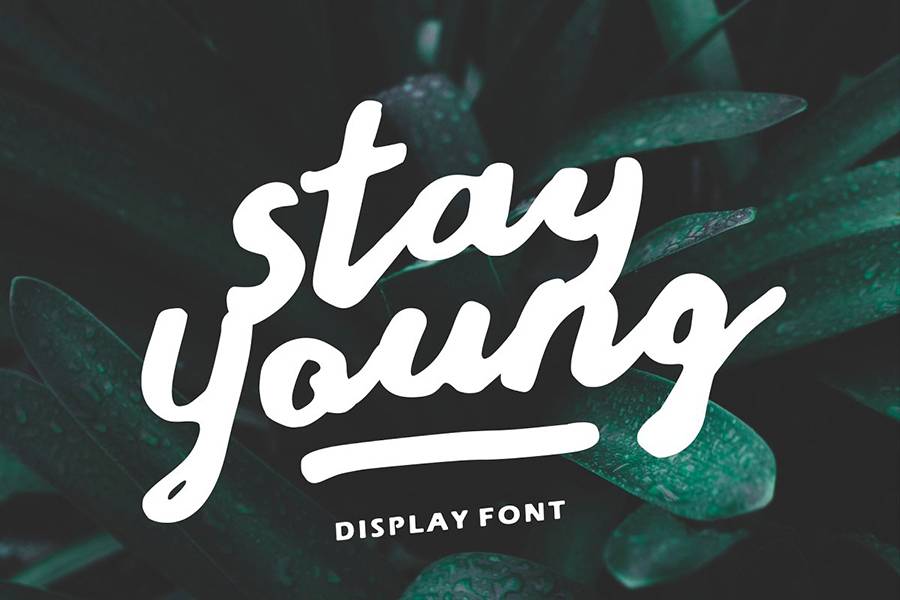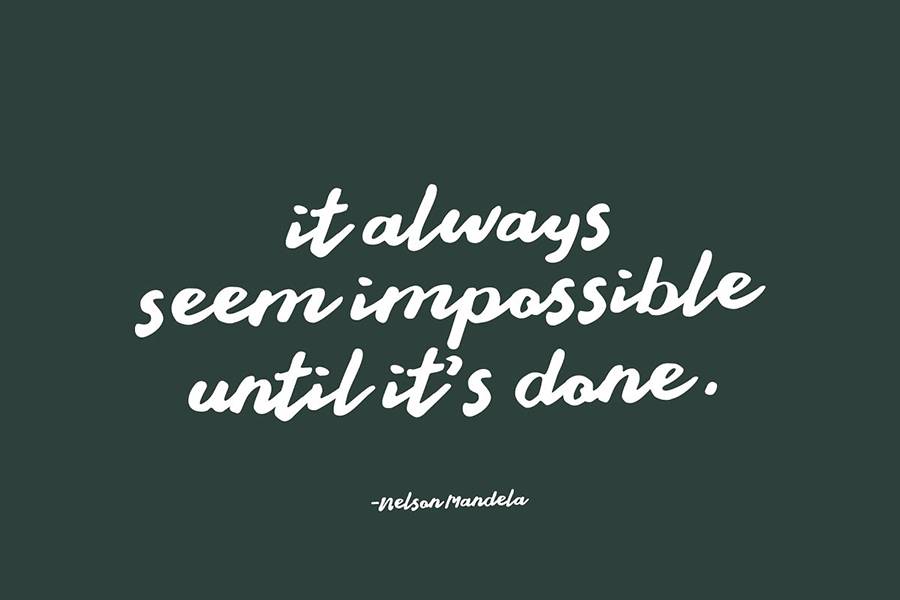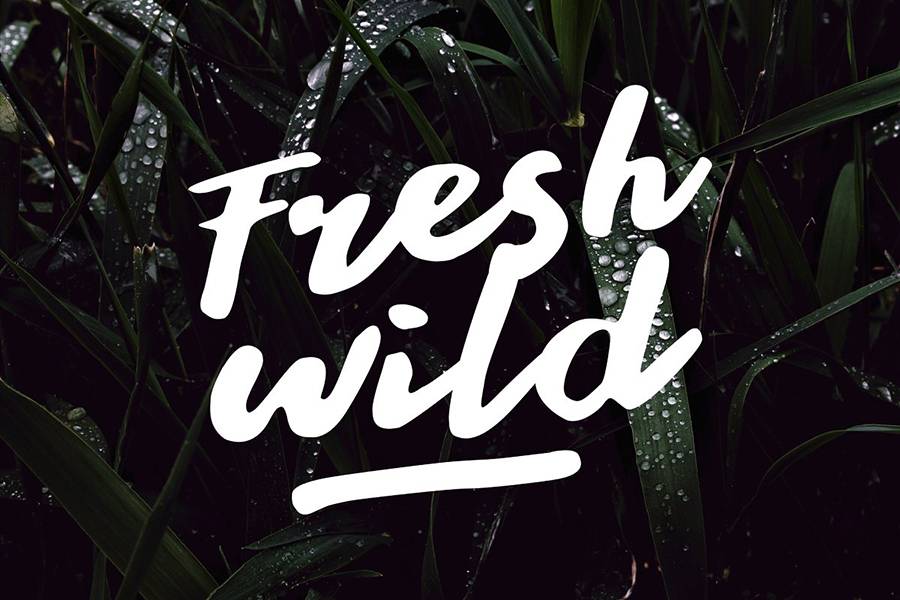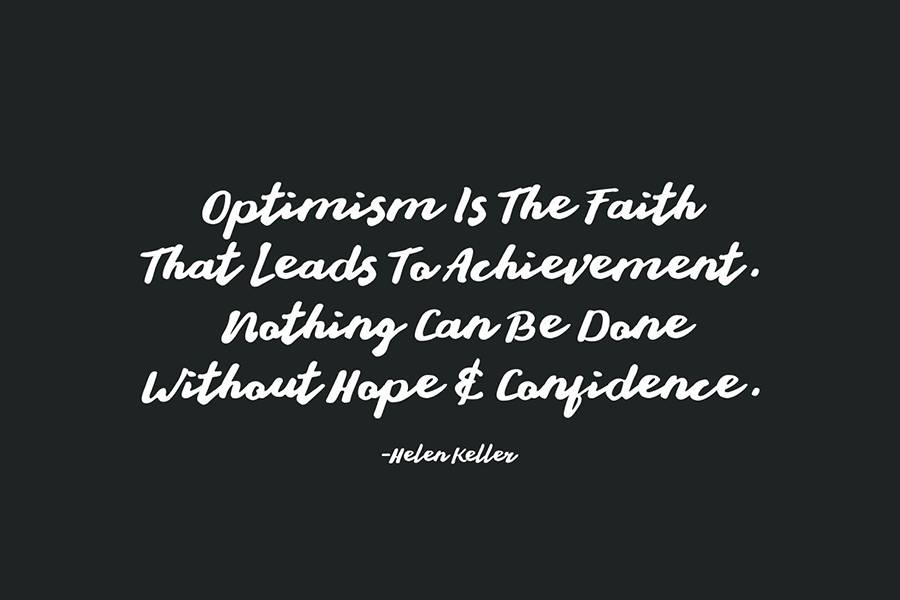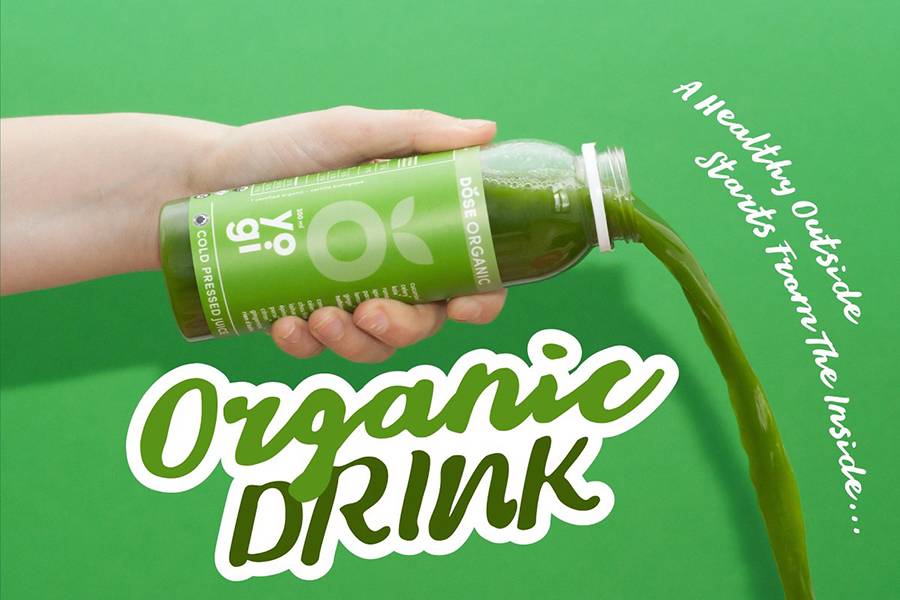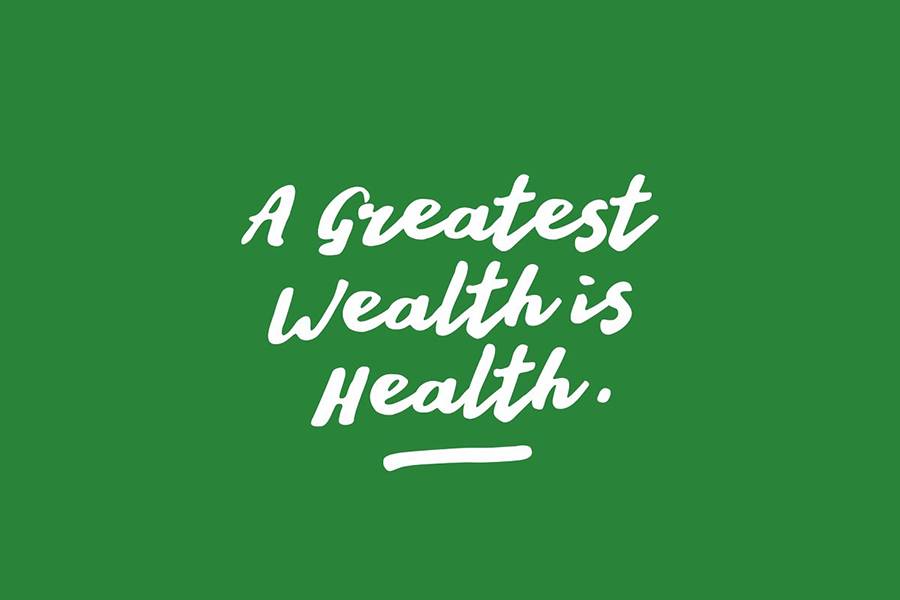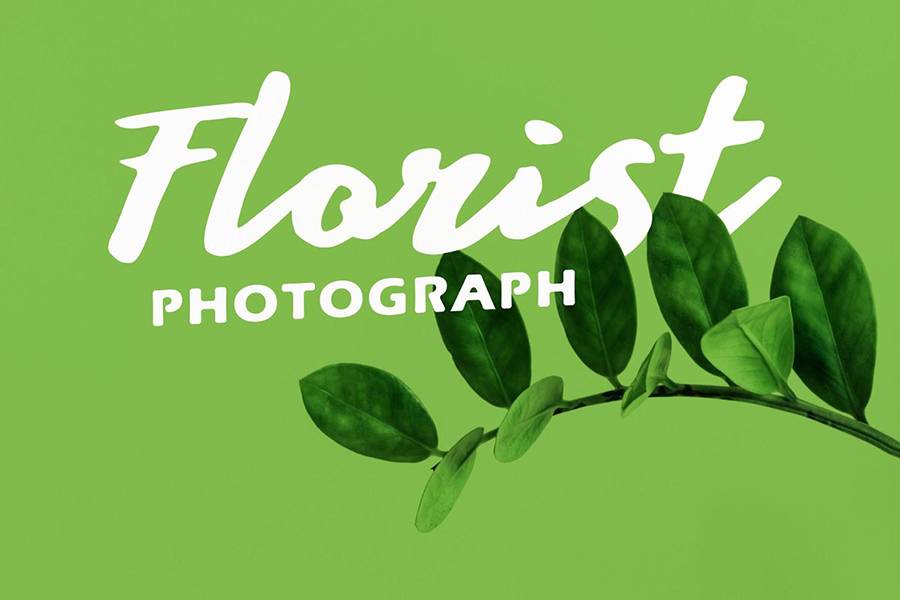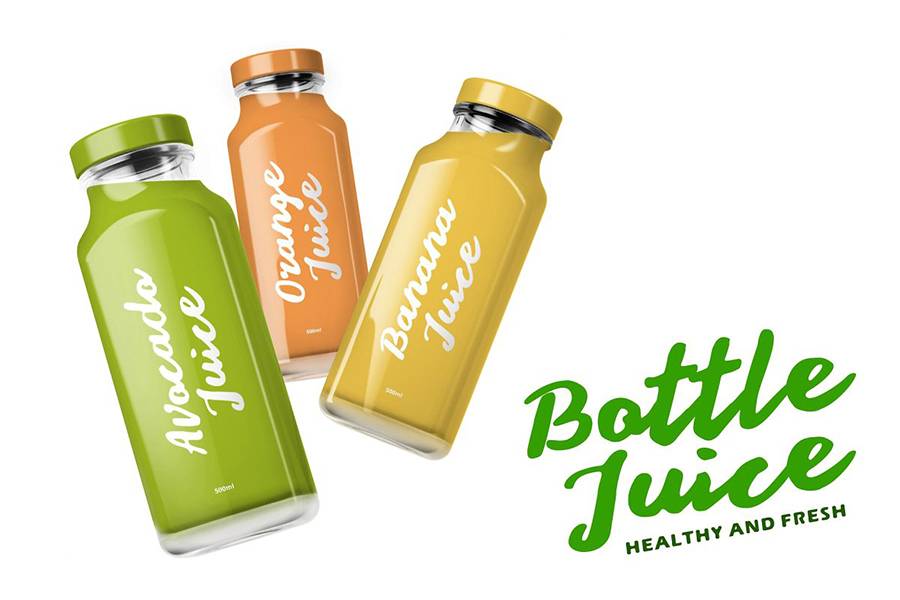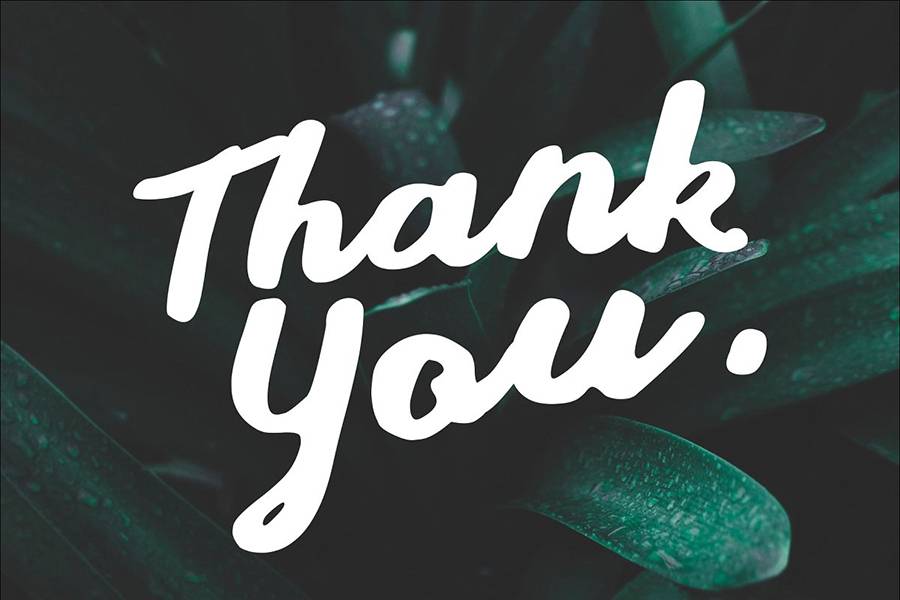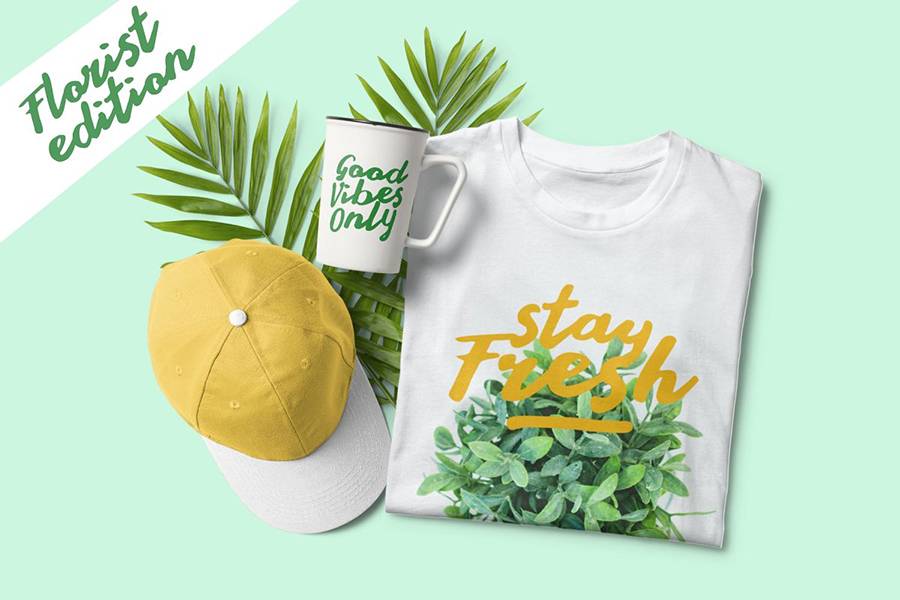
Stay Young Handlettering Display is a bold, energetic script font with a casual, hand-drawn feel that brings warmth and personality to any design. Its smooth curves and lively strokes make it perfect for playful branding, creative projects, and eye-catching headlines where a friendly, approachable vibe is desired. This font works best in logos, posters, and packaging that aim to communicate youthfulness and charm with a handcrafted touch.
Stay Young Handlettering Display
About Stay Young Handlettering Display
| Font family | Stay Young Handlettering Display |
| Designer | Muh. Aswar dan Abdul Muthalib |